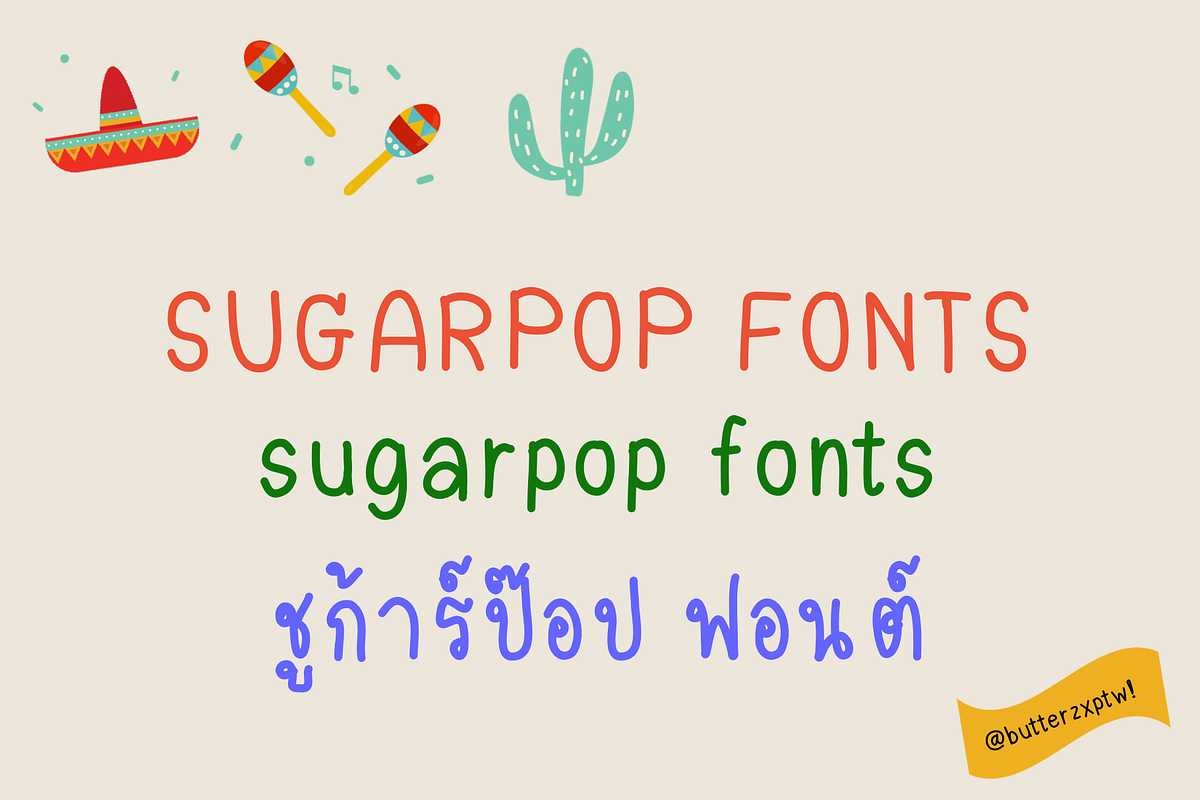
The SUGARPOP FONTS | EN-TH Free Download is a vibrant and playful typeface designed to add a fun, dynamic touch to your creative projects. With its bold, rounded letterforms and a mix of English and Thai characters, this font is perfect for a variety of applications, from branding and social media graphics to invitations and posters. Whether you're working on a festive event, a playful brand, or a youth-oriented project, SugarPop brings a cheerful energy to your designs.
SUGARPOP FONTS | EN-TH Free Download is ideal for designers who want to add a playful, multicultural flair to their work. Perfect for designs that require a fun, engaging typography, this font will make your projects stand out with its lively style. Download it today and infuse your creative work with SugarPop’s vibrant charm!